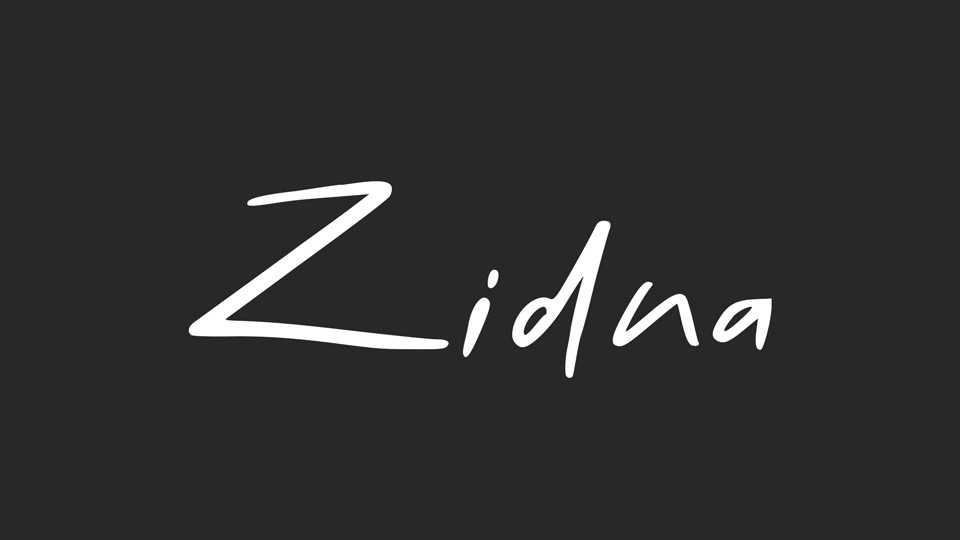
Download Zidna font, a simple and relaxed hand drawn typeface that infuses your designs with a touch of organic authenticity and effortless charm. Its subtle imperfections and casual strokes bring an element of genuine warmth to every character.